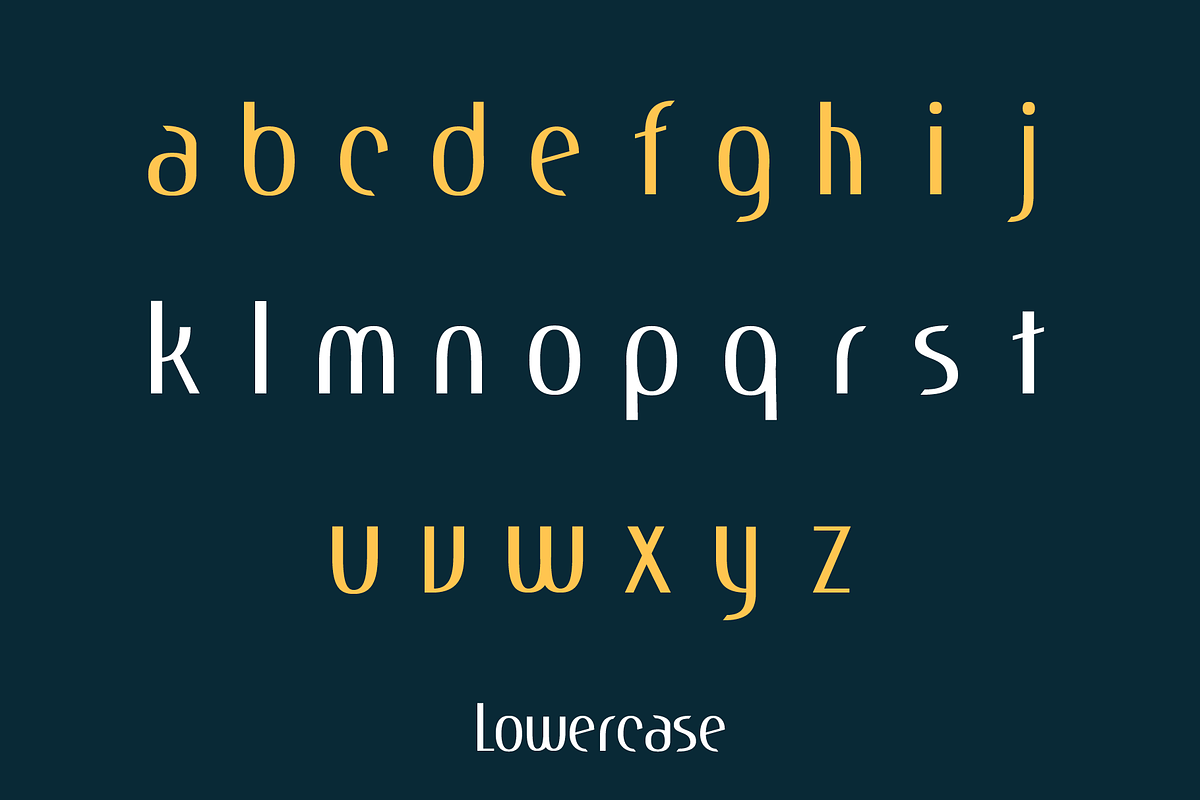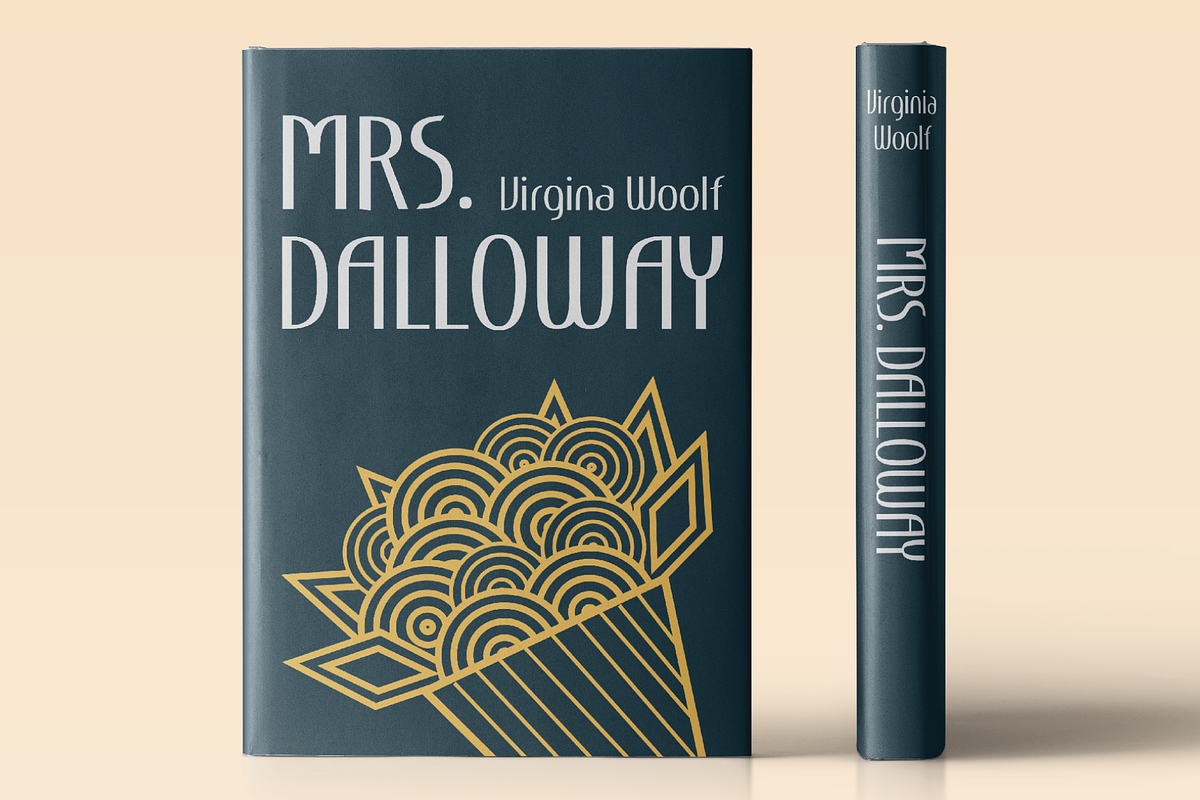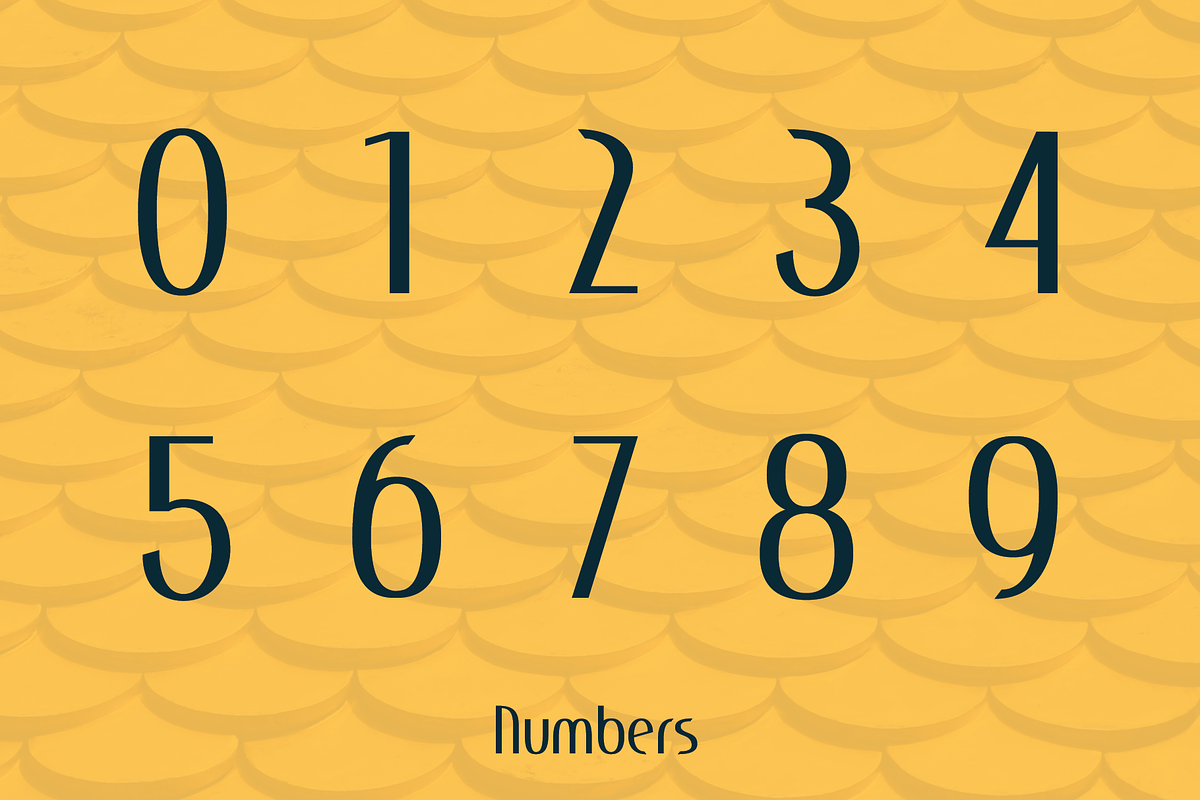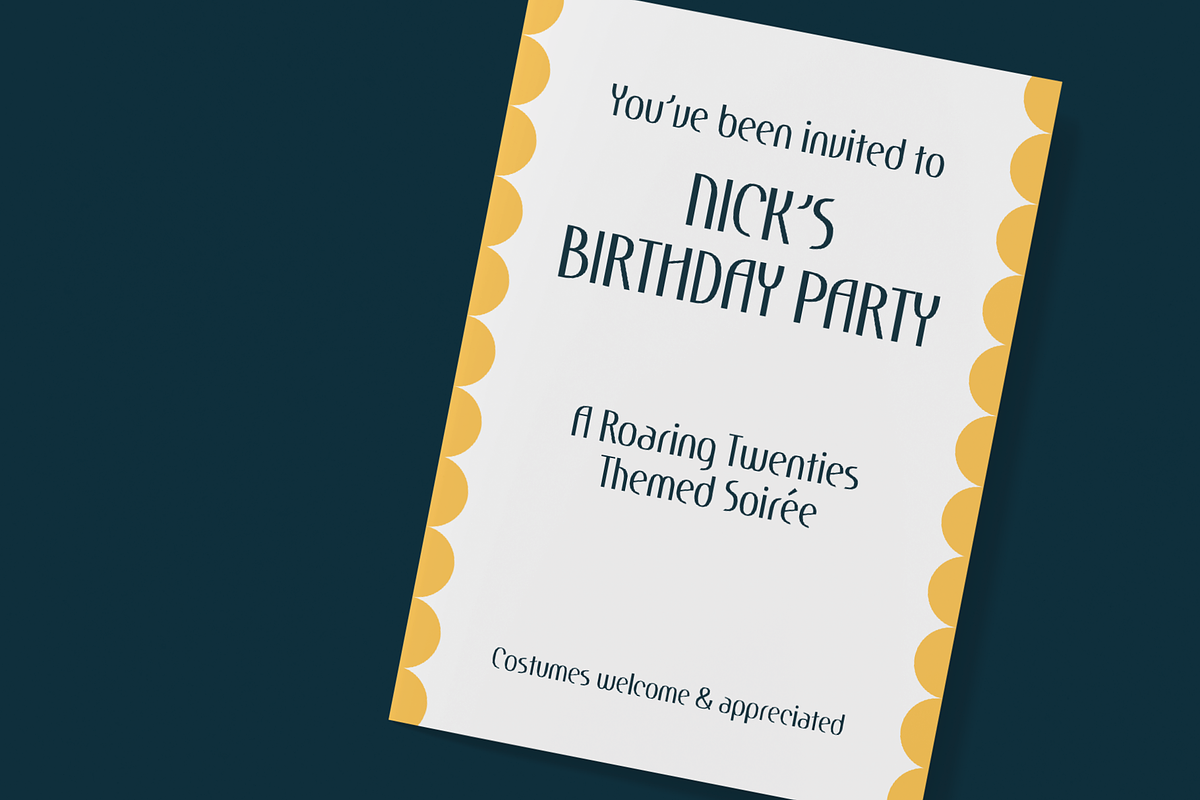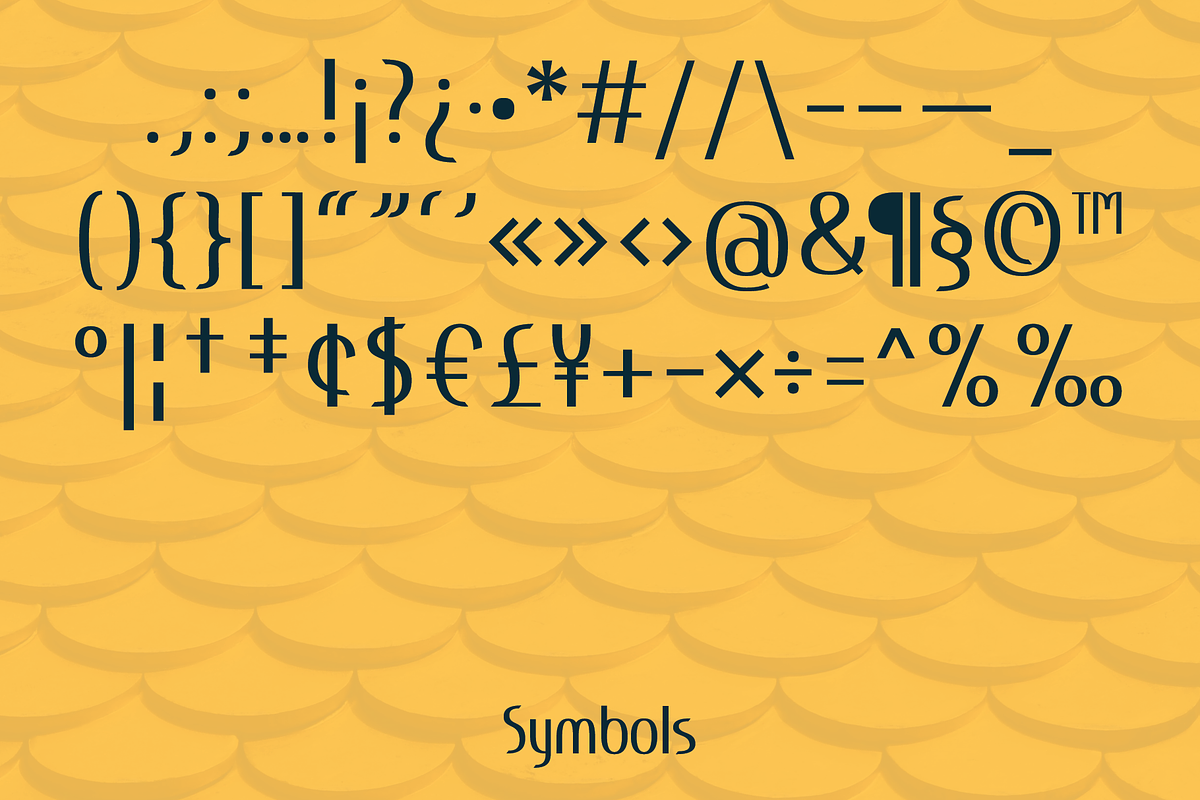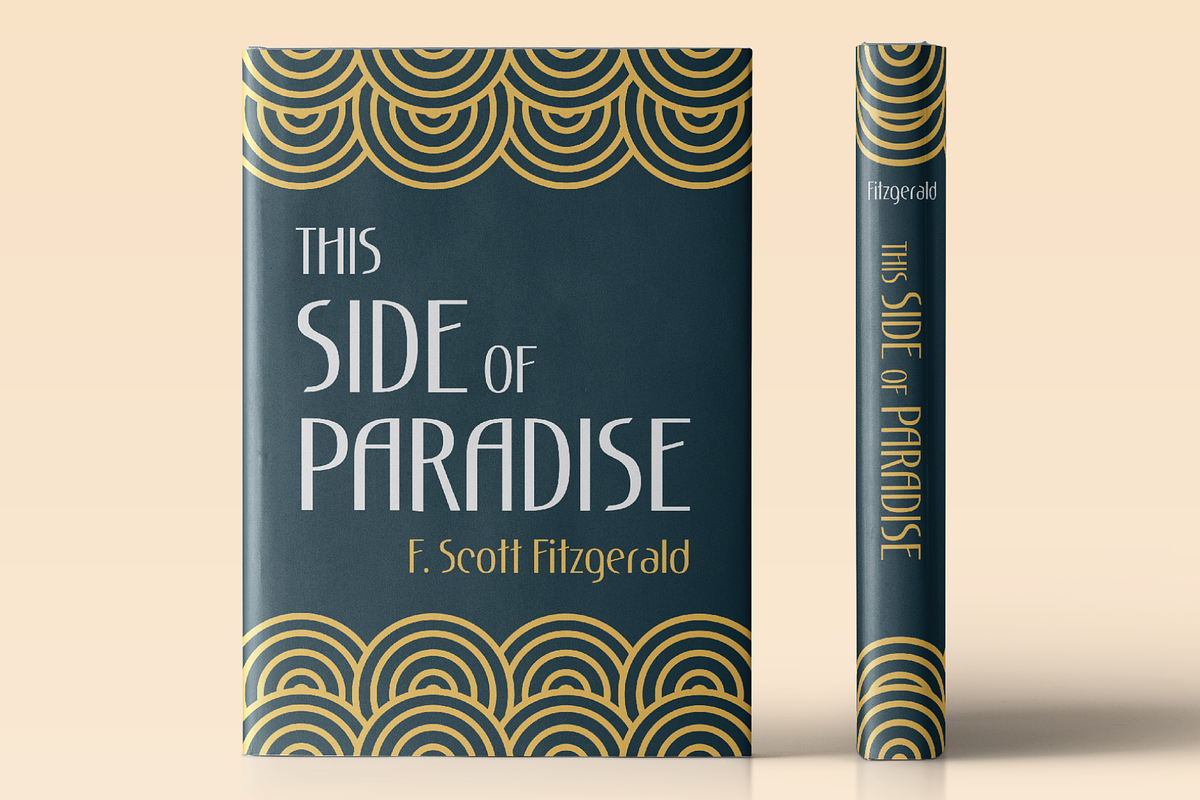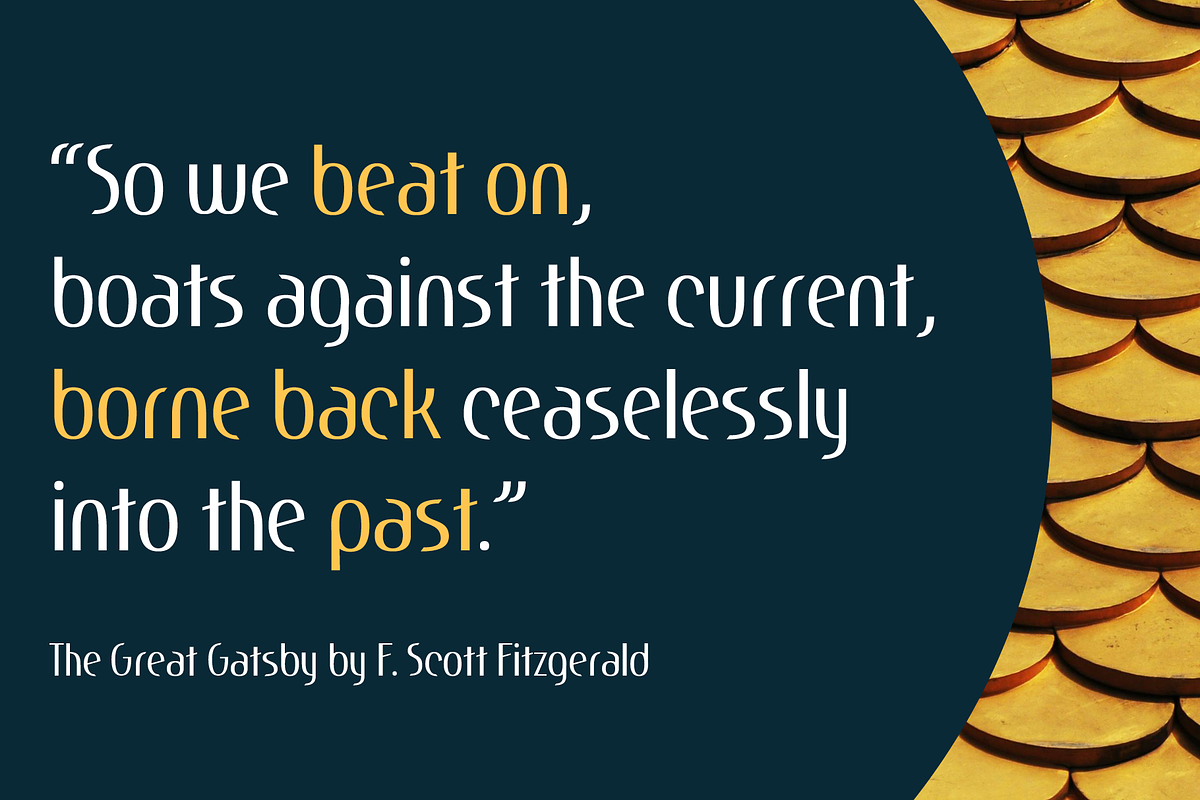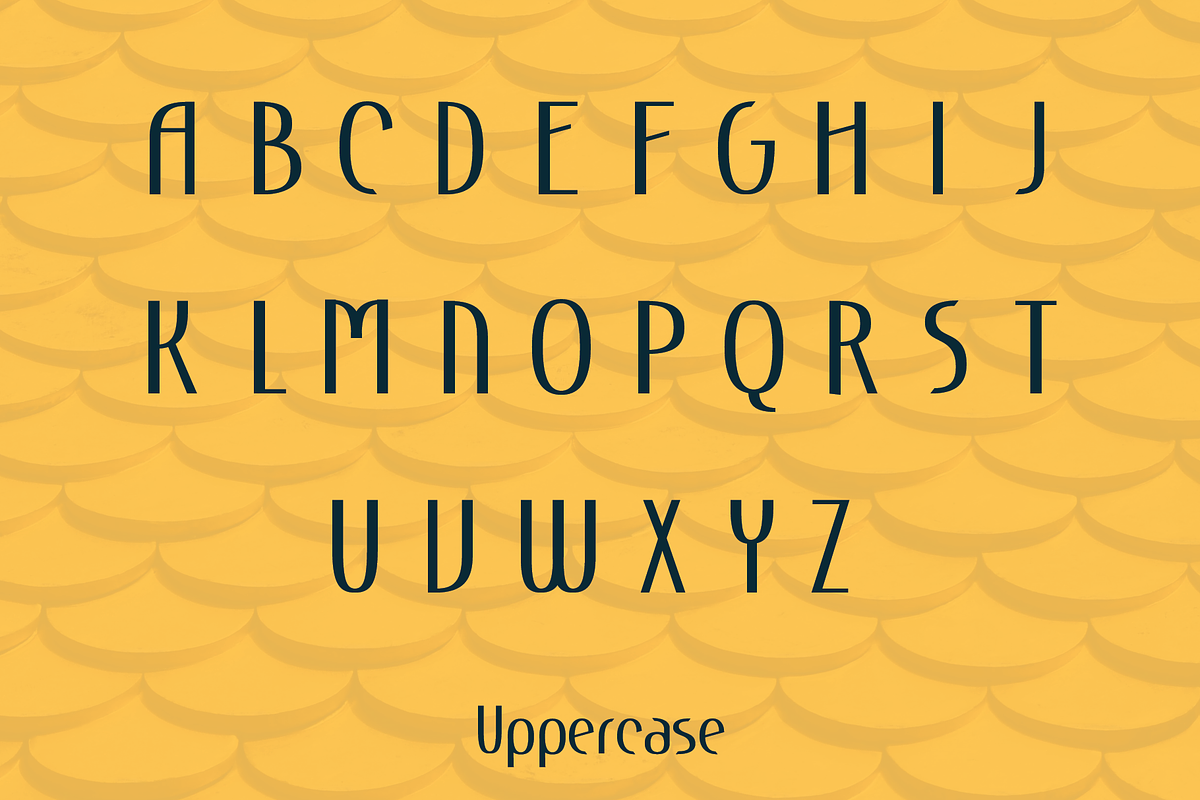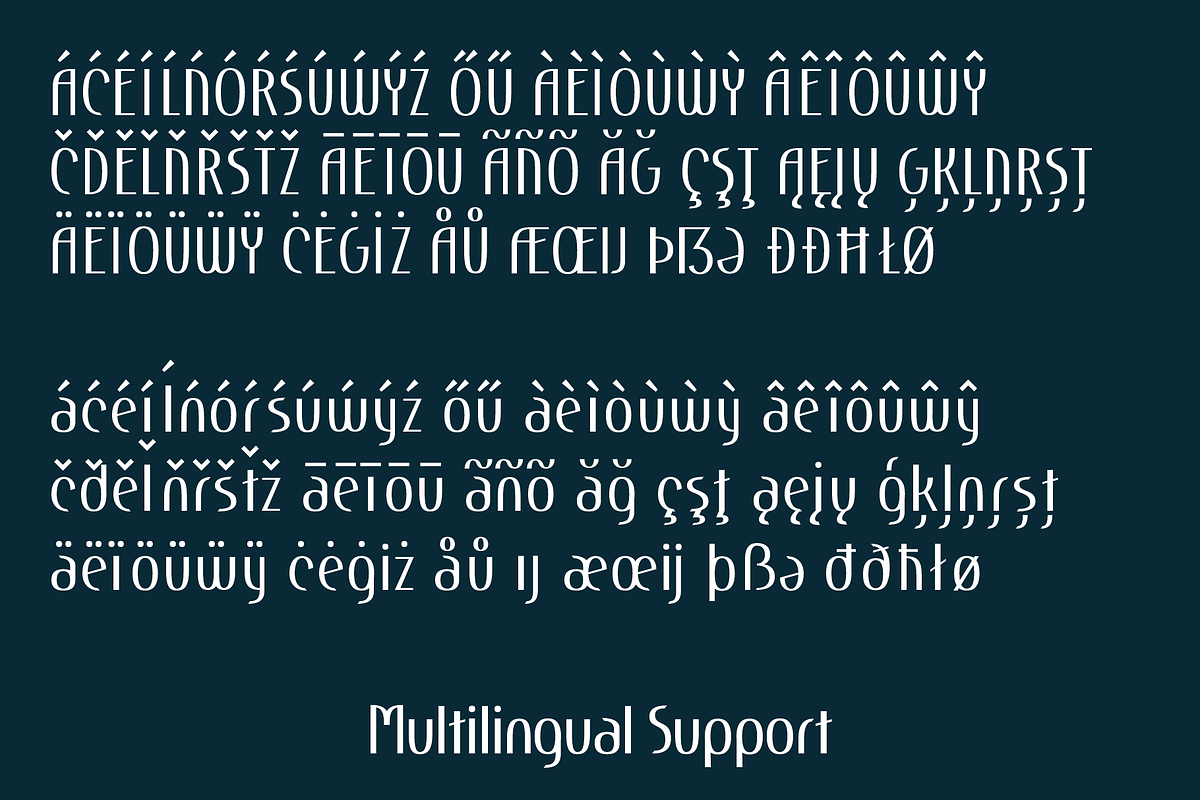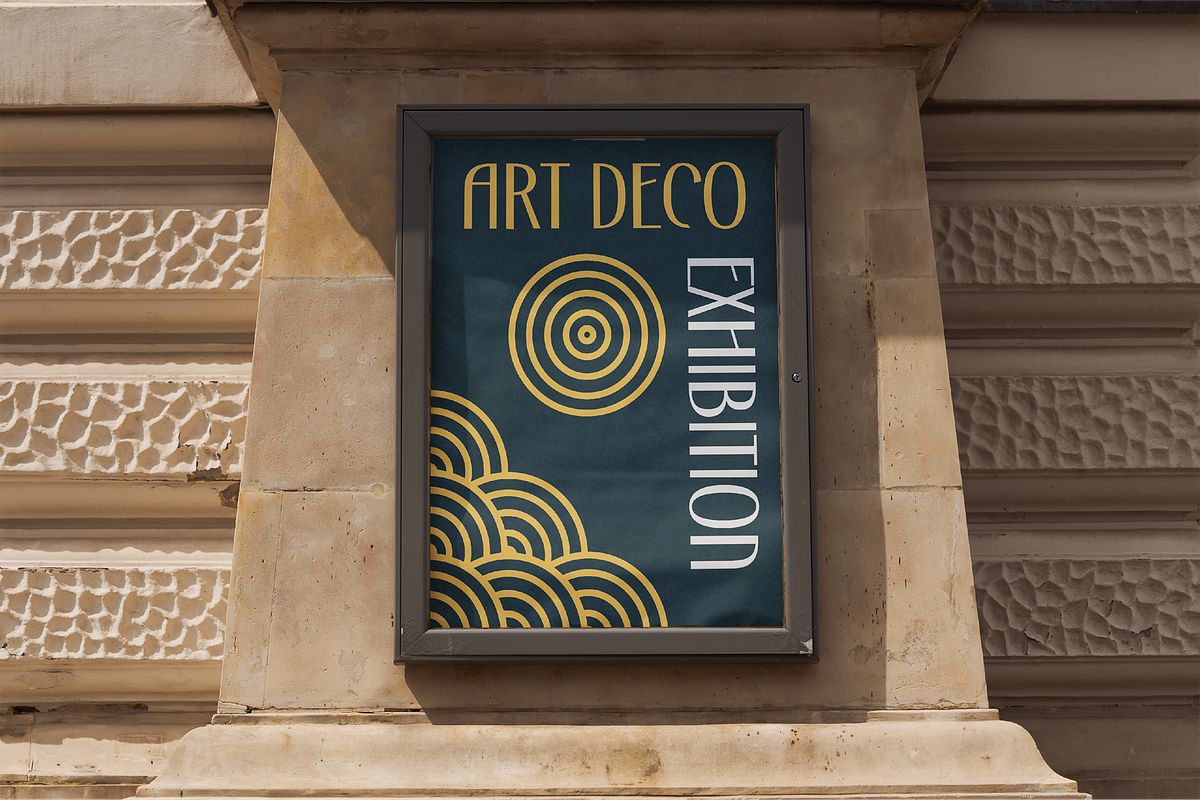
Gatsby Deco
Gatsby Deco is an art deco sans serif font inspired the classic novel The Great Gatsby by F. Scott Fitzgerald. Drawing on the art deco movement for inspiration, this sans serif is perfect for a variety of applications, including book covers, party invitations, and exhibition posters.